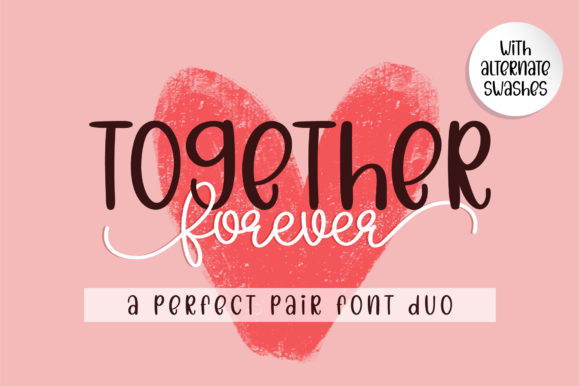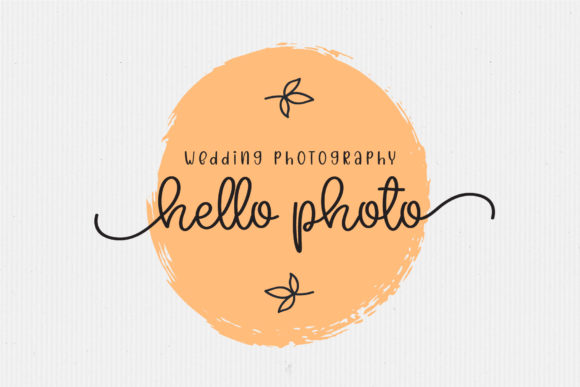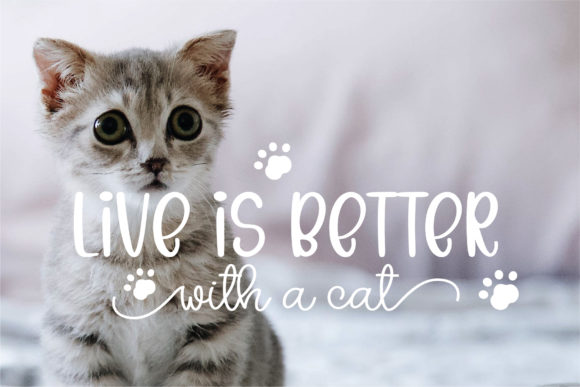
About Together Forever Font
Together Forever is a delightful duo styled handwritten font that effortlessly combines charm and elegance. With its unique and beautiful letterforms, this font adds a touch of sophistication to a wide range of design projects. From wedding invitations and thank you cards to quotes, logos, and business cards, Together Forever brings a handwritten touch that enhances the overall aesthetic.
One of the standout features of Together Forever is its versatility. The font’s timeless and romantic style makes it a perfect choice for wedding-related designs. It lends an air of grace and beauty to wedding invitations, creating an inviting and personal atmosphere for the special day. Additionally, the font’s elegant and flowing strokes make it ideal for thank you cards, quotes, and greeting cards, infusing them with heartfelt sentiment and a touch of class.
The handwritten nature of Together Forever adds a personal and intimate quality to your designs. It conveys a sense of warmth and authenticity, allowing you to connect with your audience on a deeper level. Whether you’re creating a logo for a brand that values a personal touch or designing business cards that reflect individuality, Together Forever brings a distinct and handwritten charm to your branding efforts.
The font’s duo styling offers further versatility and creative possibilities. You can mix and match the two styles to create unique combinations, adding visual interest and variety to your designs. The ability to access all of the glyphs and swashes with ease, thanks to the PUA encoding, allows you to fully explore and utilize the font’s decorative elements, making each design truly one-of-a-kind.
Together Forever is designed to be legible and visually appealing across various mediums and sizes. Its carefully crafted letterforms ensure readability, whether it’s used as headline text, body text, or even as decorative elements within larger compositions. The font’s balance of charm and elegance makes it suitable for both digital and print applications, maintaining its exquisite look and feel across different platforms.
In summary, Together Forever is a duo styled handwritten font that brings charm and elegance to your designs. With its versatility and PUA encoding, it offers endless creative possibilities for wedding invitations, thank you cards, quotes, logos, and various other design projects. Embrace the beauty and personal touch of Together Forever, and let it create a lasting impression on your audience.